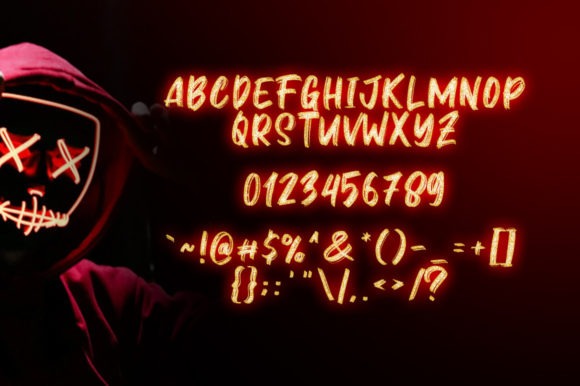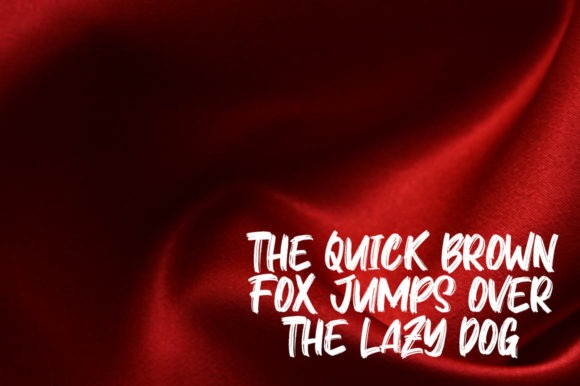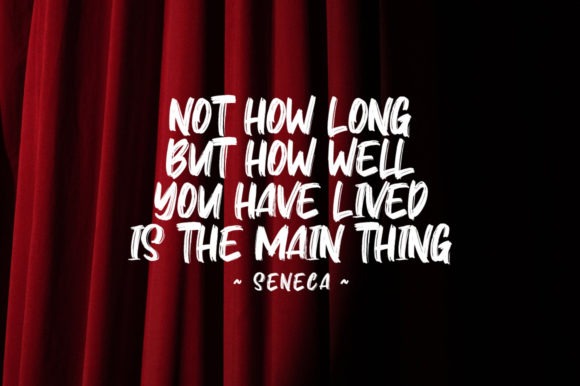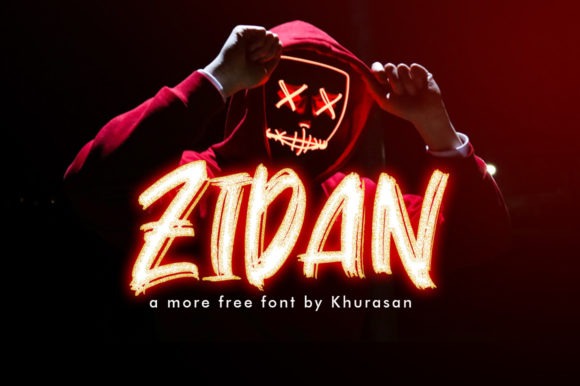
Zidan Brush Font
If you’re looking for a brush font to attract your audiences or customers then we’ve got the font for you! Briston font is a simple and classy font perfect for posters, logos, magazines, book covers, banners, and many more! Get this amazing freebie, and use it to create lovely designs!